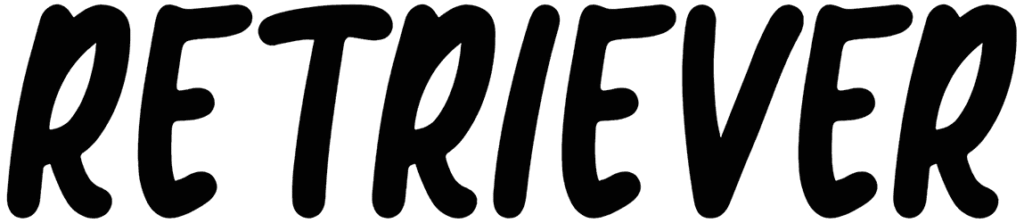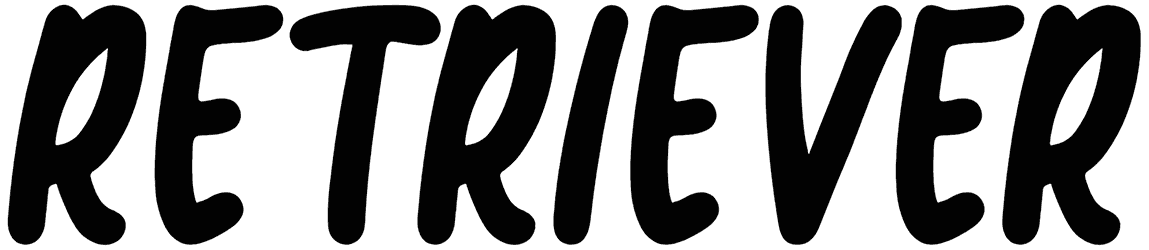
Retriever Font
Retriever is a funny handwritten font with a smooth texture. It is bold enough to emphasize the specific part of the text you want to be seen better. Making a warm connection with the audience and cheering them up is as…
Retriever is a funny handwritten font with a smooth texture. It is bold enough to emphasize the specific part of the text you want to be seen better. Making a warm connection with the audience and cheering them up is as easy as pie for this font.
It can be used for comic books, cartoon titles, video games, toy products, and other designs that need to convey happiness and joy.